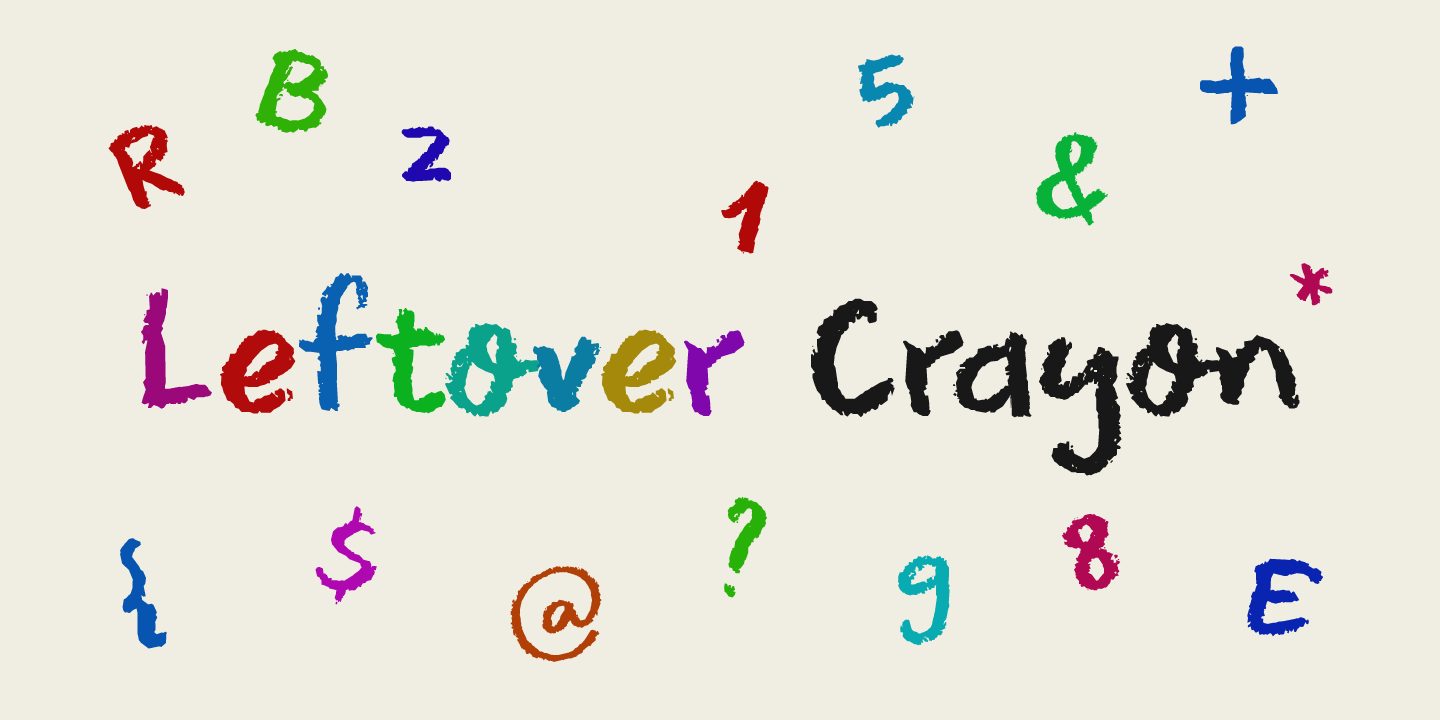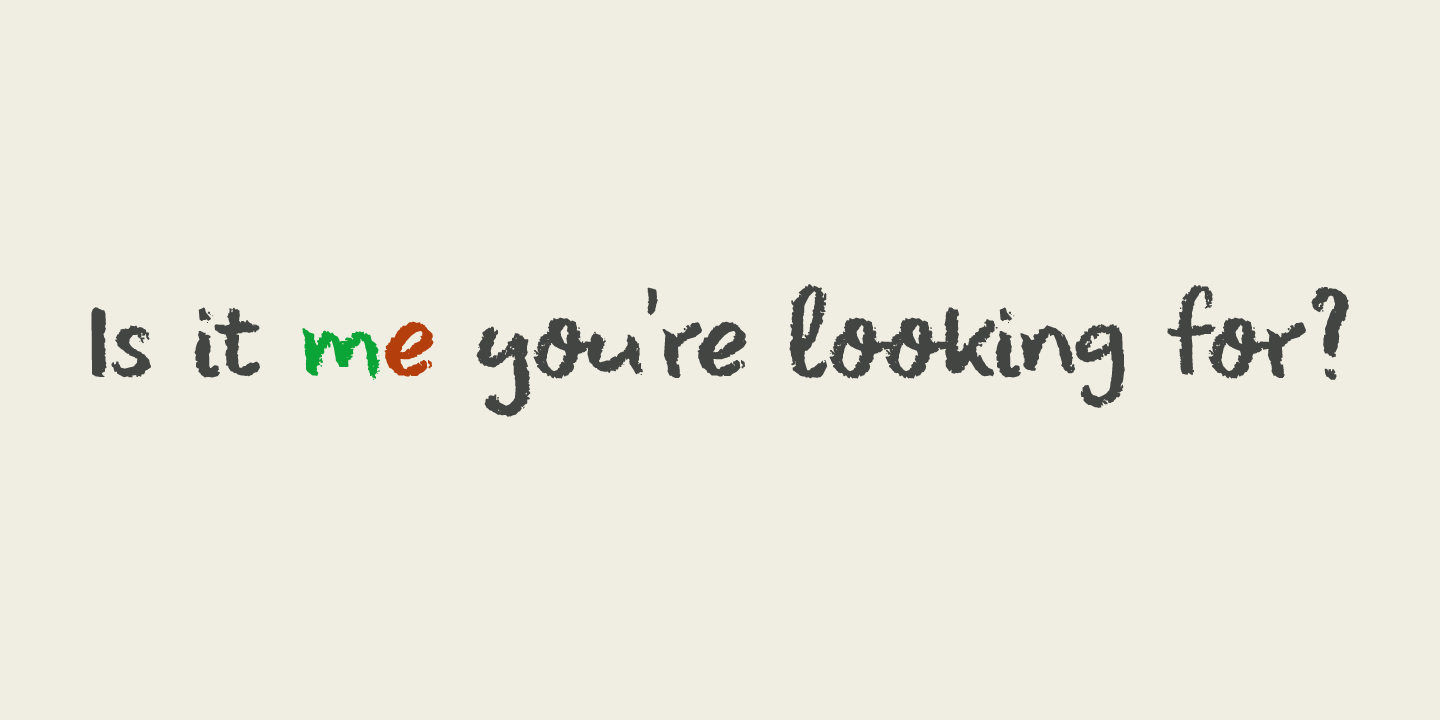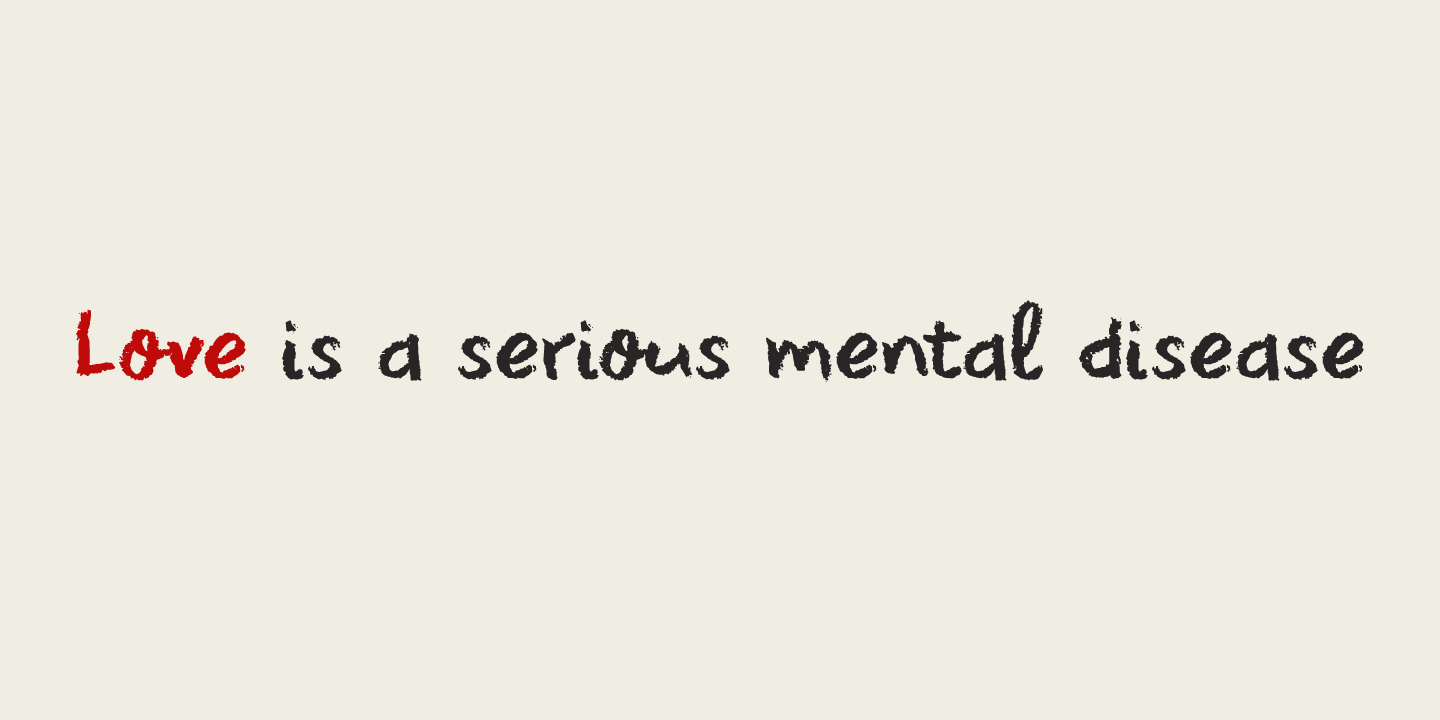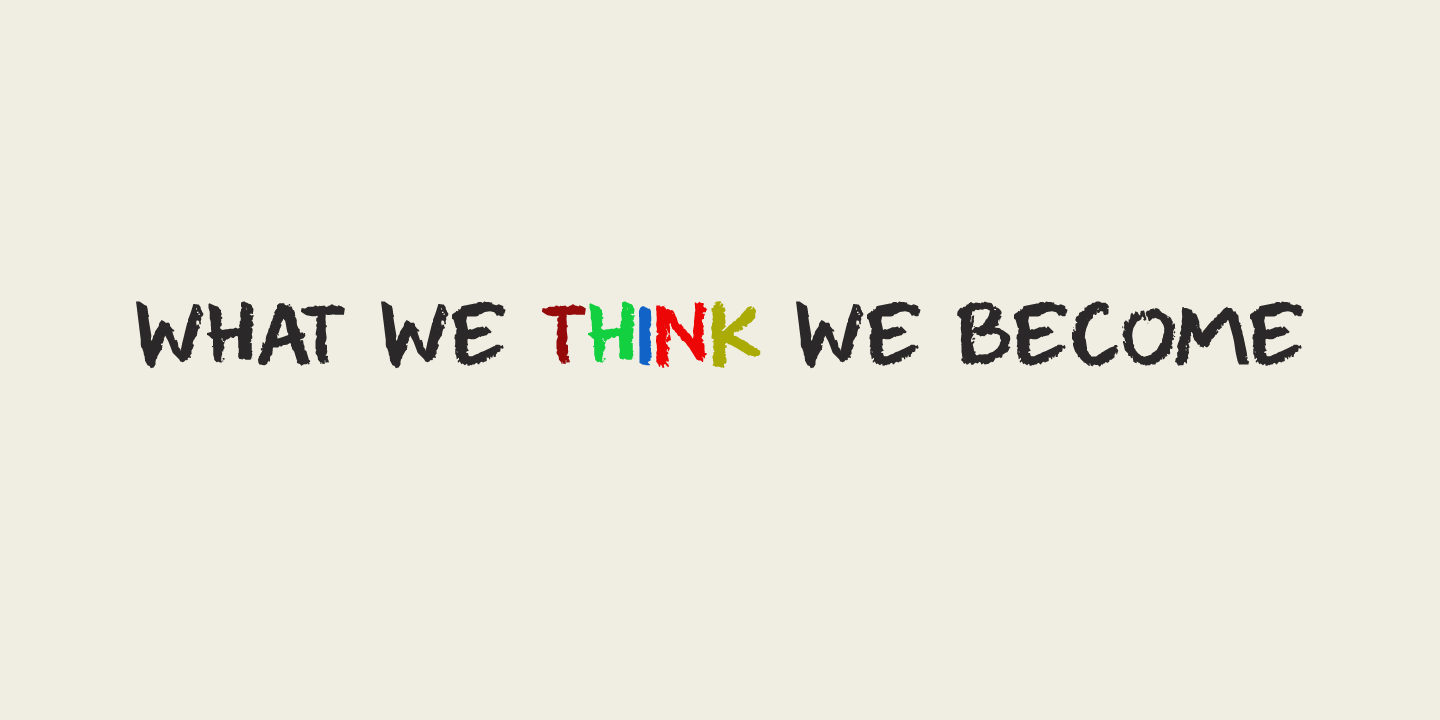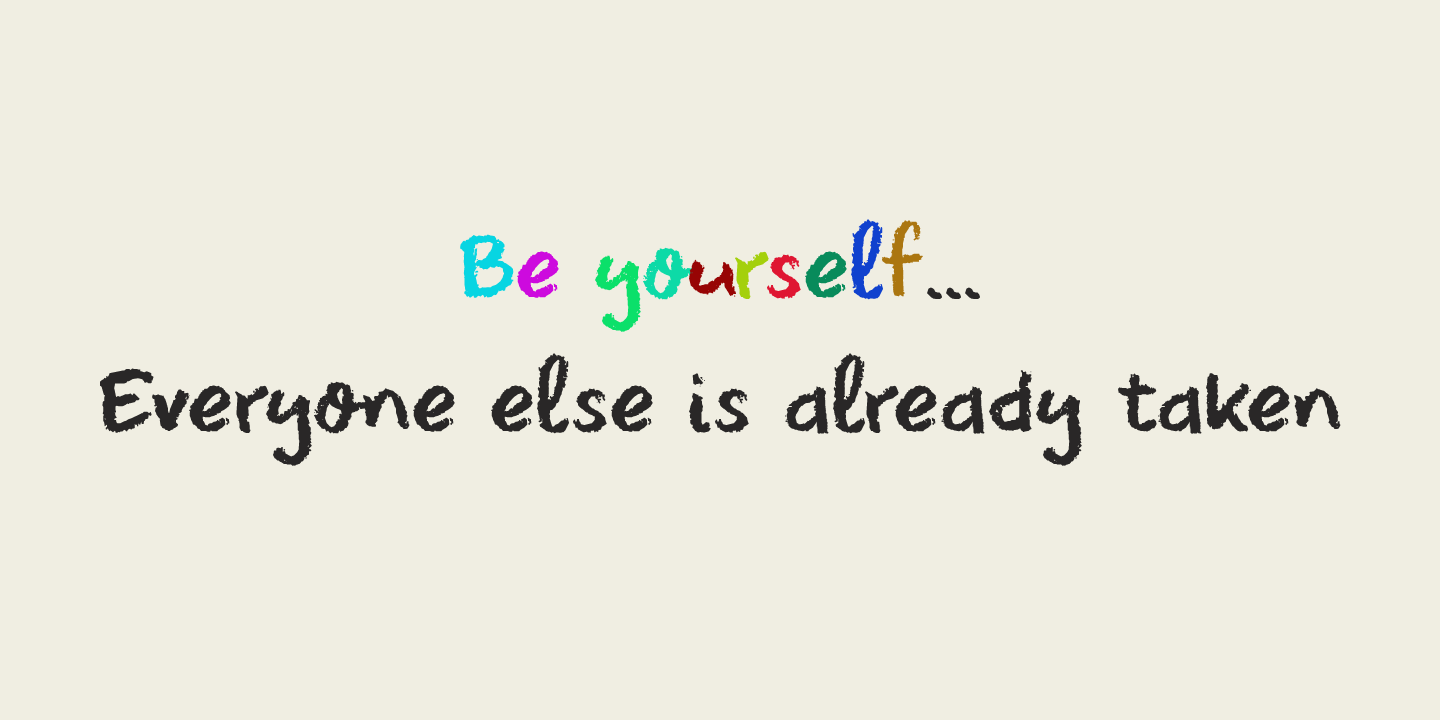
Leftover Crayon
My kids have a tin box filled with crayon and pencil leftovers: bits and pieces that have fallen or broken off, but are still good enough to use. For me it is a treasure trove, as I often find a nice bit of crayon to use for a new font.
In this case, I created Leftover Crayon. Leftover Crayon is a fat, crumbling and seriously eroded crayon font. Completely hand made, completely legible and full of character. Use it for your bedtime stories, product packaging and invitations. Comes filled to the brim with diacritics.